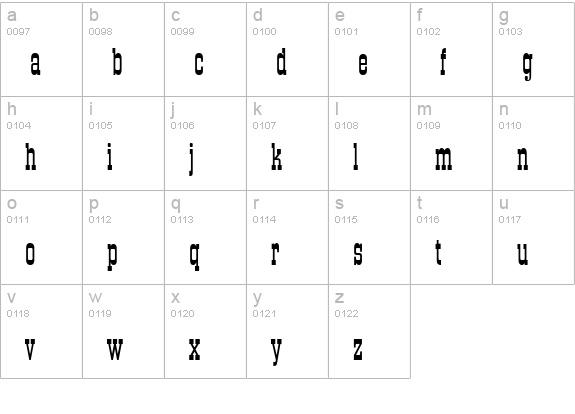
QTOKCorral-Cnd Regular Font Details
QTOKCorral-Cnd Regular is the standard, neutral variant in the QTOKCorral typeface family \xE2\x80\x94 well suited to general body text, paragraphs, and standard typographic work.
Introducing QTOKCorral-Cnd Regular, a versatile and captivating font that effortlessly combines elegance with a touch of playfulness. This remarkable typeface is perfect for all your creative projects, whether you're designing logos, crafting eye-catching advertisements, or creating stunning typography for your website. With its clean lines and carefully crafted letterforms, QTOKCorral-Cnd Regular exudes a sense of sophistication and modernity. Its slightly condensed structure adds a unique touch, making it suitable for a wide range of applications. From professional presentations to personal projects, this font will elevate your designs to new heights. But what truly sets QTOKCorral-Cnd Regular apart is that it is freely available to download at FontsMarket.com. Yes, you read that right! You can now access this magnificent font without any cost, allowing you to unleash your creativity without breaking the bank. FontsMarket.com is your go-to source for high-quality free fonts, and QTOKCorral-Cnd Regular is just one of the many gems waiting to be discovered. So go ahead and give your designs the attention they deserve. Download QTOKCorral-Cnd Regular today and let its elegance and versatility breathe new life into your projects. Whether you're a seasoned designer or just starting out, this font will undoubtedly become an invaluable asset in your typographic arsenal. Don't miss out on this incredible opportunity to enhance your designs for free – visit FontsMarket.com now and unlock the endless possibilities of QTOKCorral-Cnd Regular.